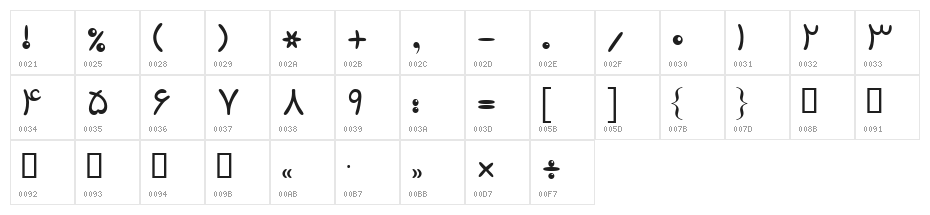
Destkhat Morwaarid Font
Destkhat Morwaarid Description
This font features a unique and artistic style with a calligraphic influence, characterized by flowing, curved lines and intricate details. The characters exhibit a blend of traditional and modern elements, creating a visually appealing and elegant appearance. The numerals and special characters maintain the same artistic flair, ensuring consistency across all glyphs. This font is ideal for projects that require a touch of sophistication and creativity.
| Overall Style | Artistic, Elegant |
| Use Case | Logos, Invitations, Artistic Projects |
| Proposed Projects | Ideal for wedding invitations, greeting cards, artistic posters, and branding materials that require a sophisticated and creative touch. |